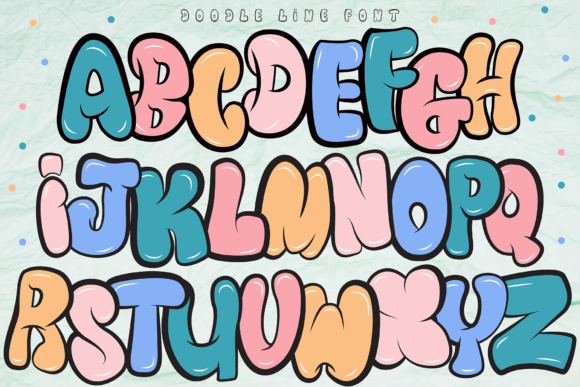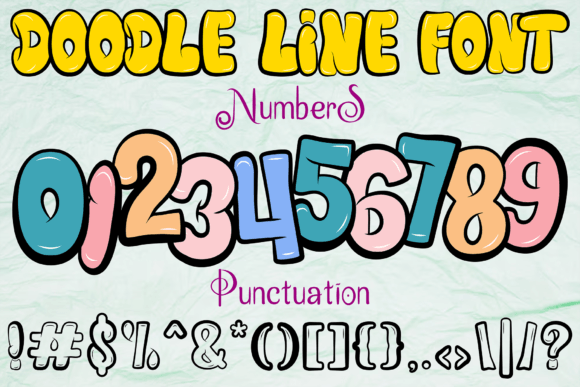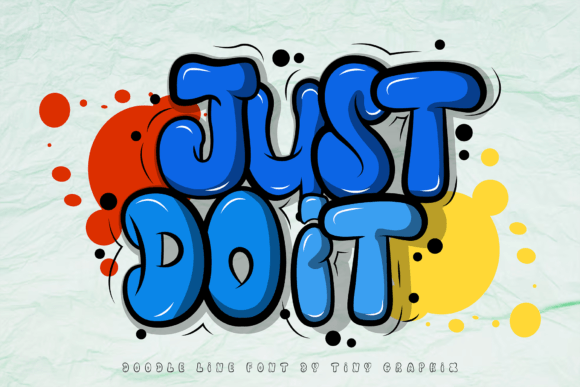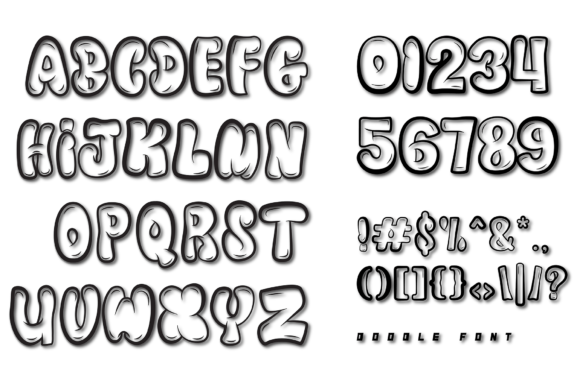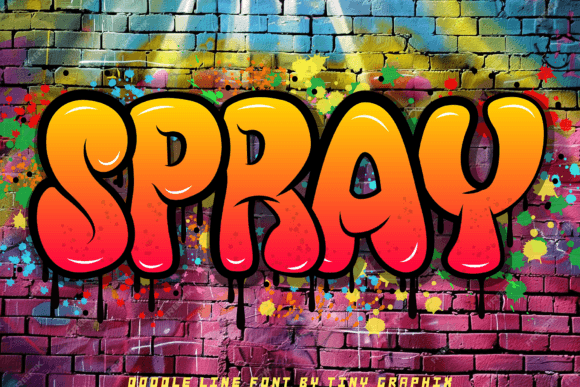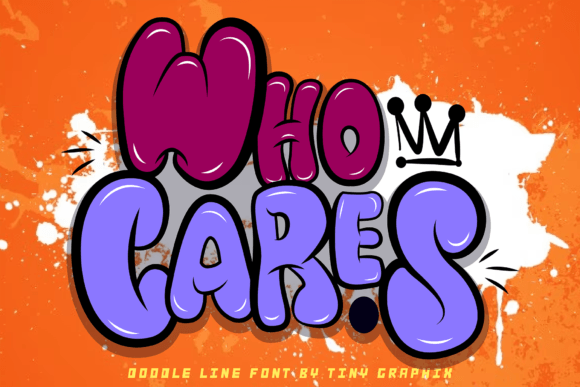
Unlock the Power of Street Art in Your Designs
Have you ever sat in front of a blank canvas, struggling to find the perfect font to bring your design to life? We’ve all been there – the blank page staring back, taunting us to unleash our creativity. But what if you had a font that could add a dash of street art magic to your work? Enter the Doodle Line Font, a bold and dynamic graffiti display font that’s guaranteed to grab attention and make a statement.
This unique font is perfect for designers looking to add a modern and cool touch to their branding, logos, and even games. Its authentic street art vibe and fun, doodle-like lines make it an ideal choice for anyone looking to elevate their designs and stand out from the crowd. With the Doodle Line Font, you’ll be able to create designs that are truly one-of-a-kind and leave a lasting impression on your audience.
Doodle Line Font Key Features
- Unique Characteristics: The font features a unique, hand-drawn style with irregular lines and subtle imperfections, giving it a distinctive and artistic feel.
- Legibility: Despite its unique appearance, the Doodle Line Font is highly legible and easy to read, making it suitable for a wide range of applications, including body text and headings.
- Character Set: The font includes a comprehensive character set, including uppercase and lowercase letters, numerals, punctuation marks, and special characters.
Doodle Line Font Review
As a designer, I’ve had the chance to work with Doodle Line Font, and I have to say, it’s a unique and creative addition to any design project. ✨ Here are some of its strengths:
- Hand-drawn feel: Doodle Line Font has a distinctive, hand-drawn aesthetic that can add a touch of personality to your designs.
- Expressive versatility: This font can be used for a wide range of projects, from whimsical children’s books to trendy advertisements.
- Easy to read: Despite its quirky appearance, Doodle Line Font is surprisingly easy to read, making it a great choice for body text.
However, like any font, Doodle Line has its limitations: ⚠️
- Limited legibility: While the font is easy to read at larger sizes, it can become difficult to decipher at smaller point sizes.
- May not be suitable for formal projects: Doodle Line Font’s playful, hand-drawn feel may not be the best choice for formal or professional projects.
- May require adjustments: Depending on the project, you may need to adjust the font’s spacing or kerning to achieve the desired look.
Overall, Doodle Line Font is a great choice for designers looking to add some personality and whimsy to their projects. With a little creativity and experimentation, it can be a valuable addition to any design toolkit.
The Doodle Line Font is perfect for:
– Creating playful and whimsical designs.
– Adding a personal touch to invitations and greeting cards.
– Designing educational materials for children.
– Creating custom typography for branding and marketing materials.